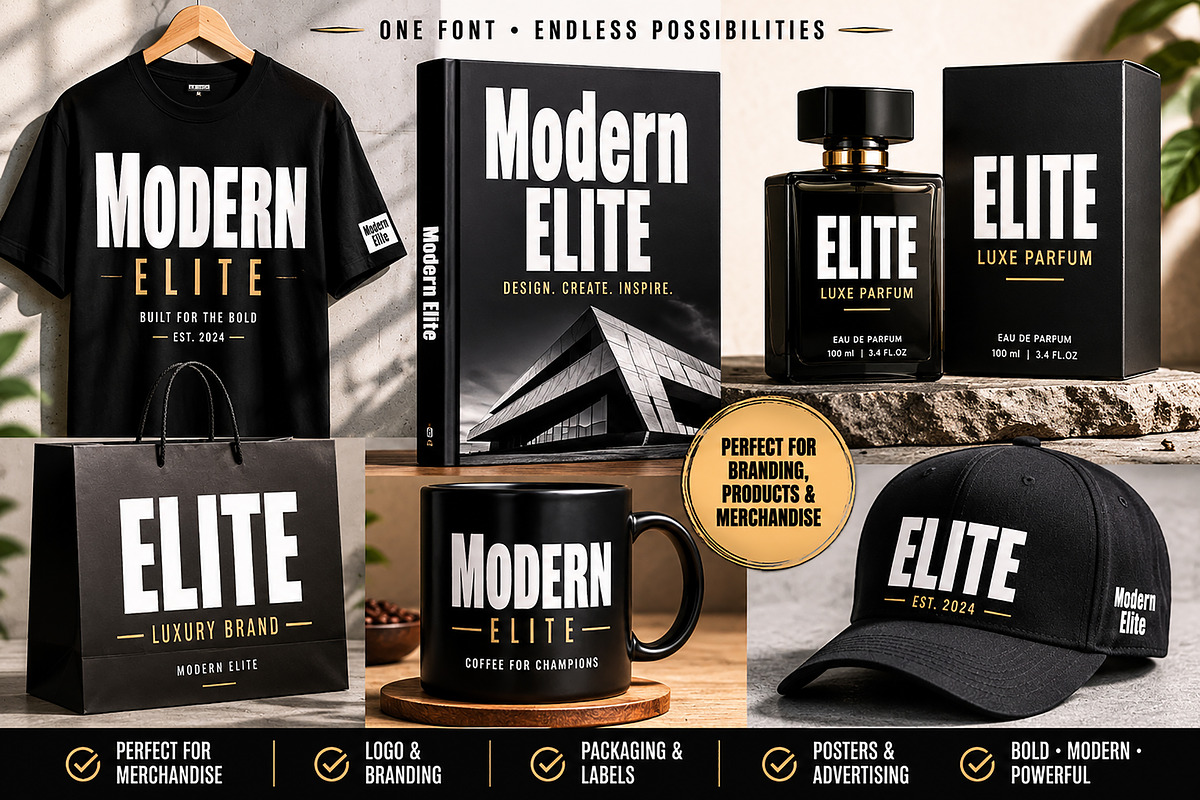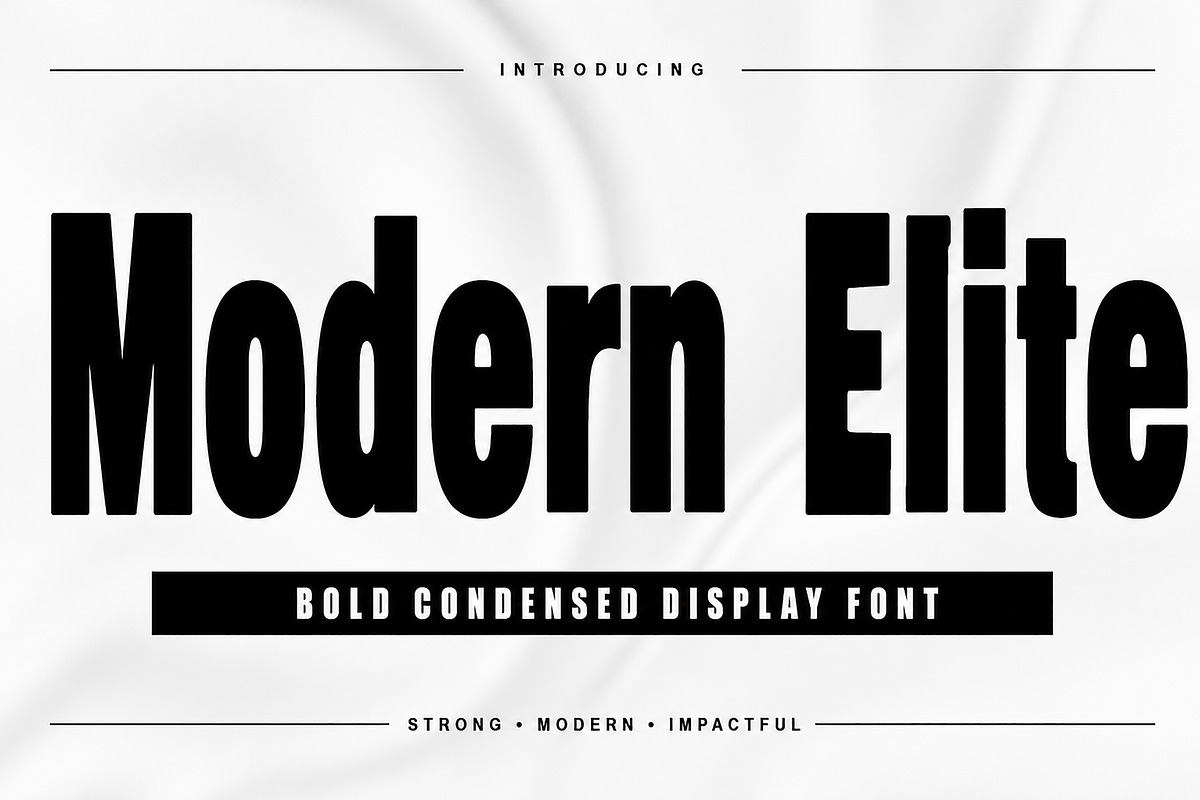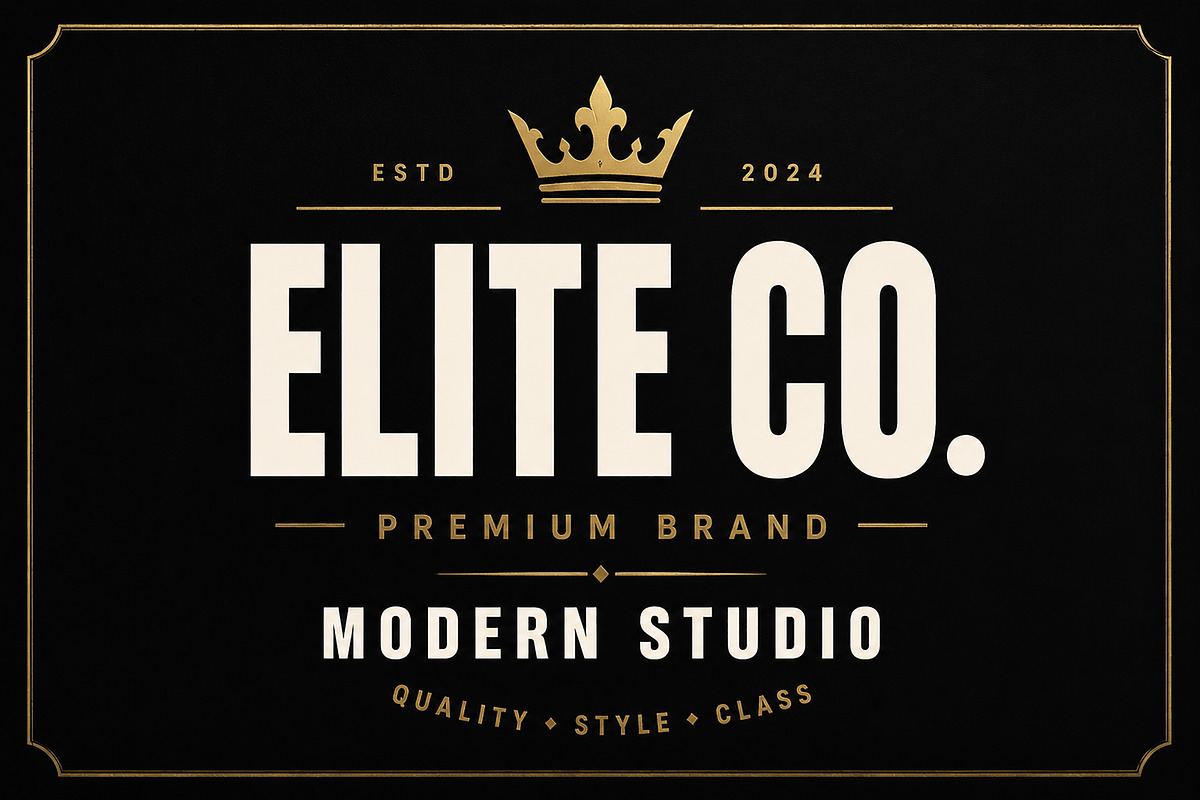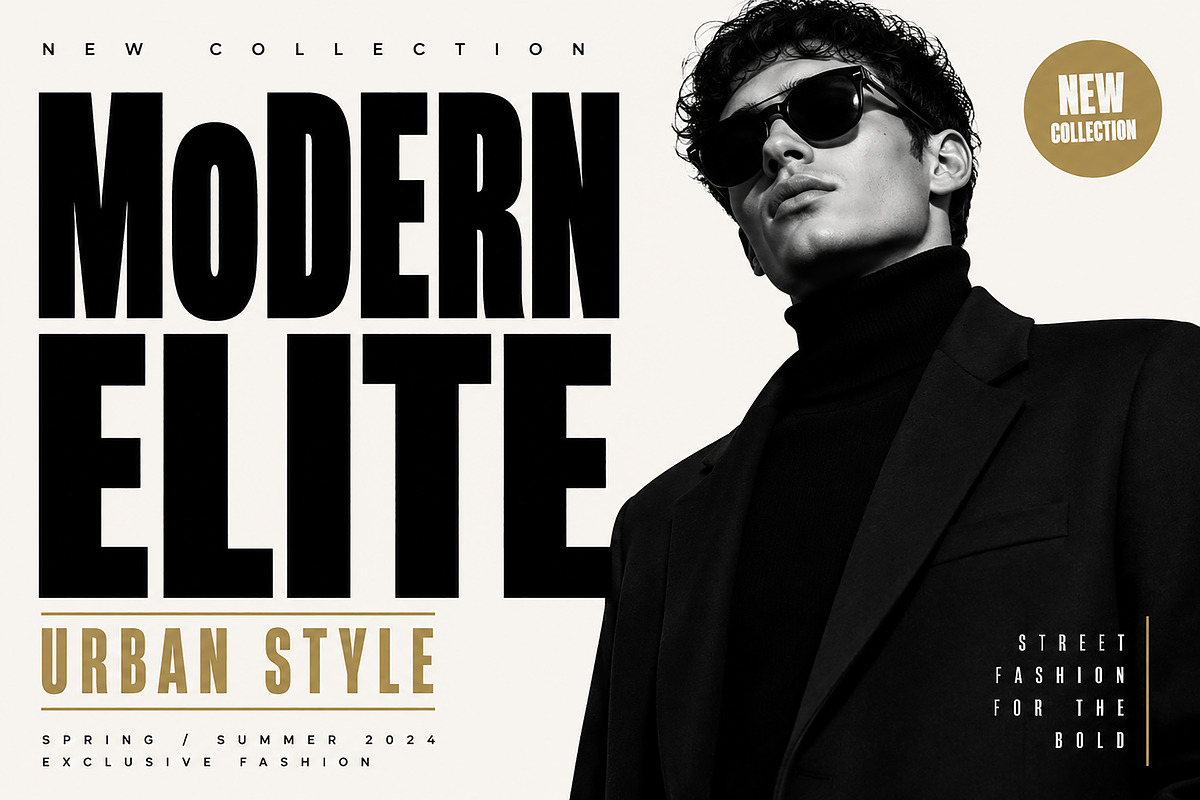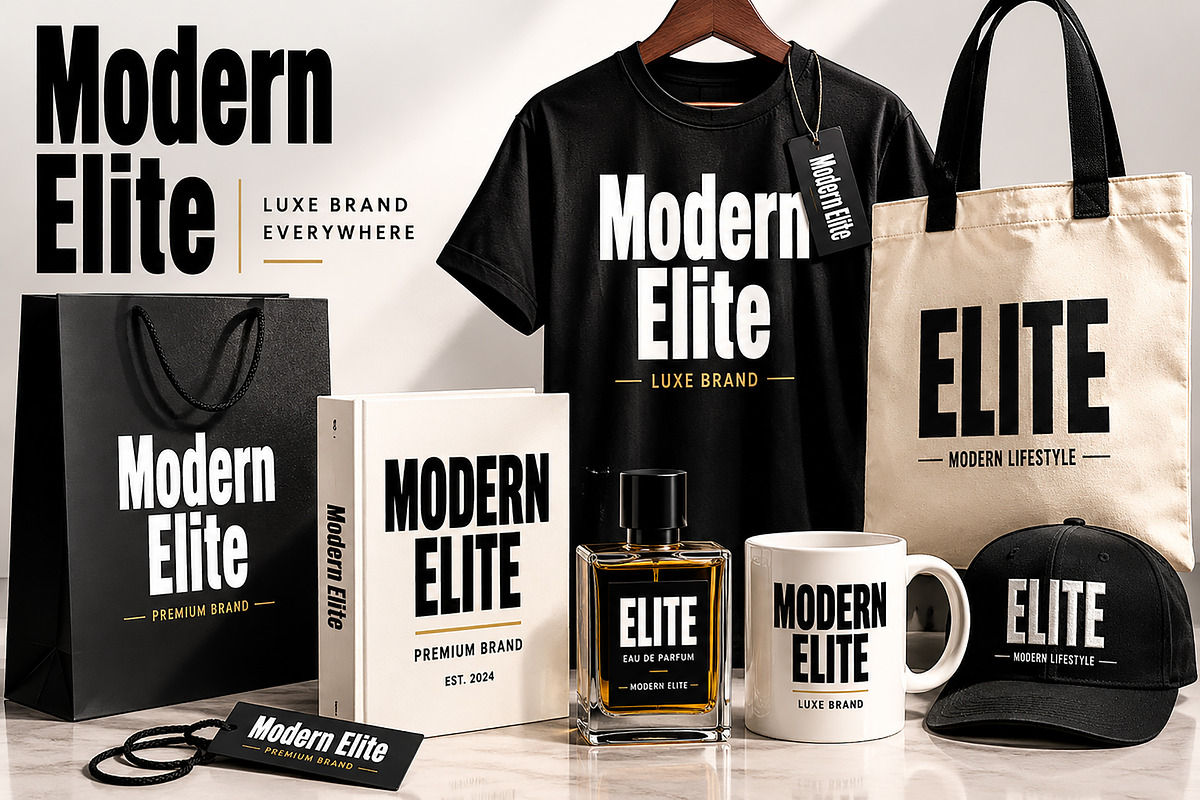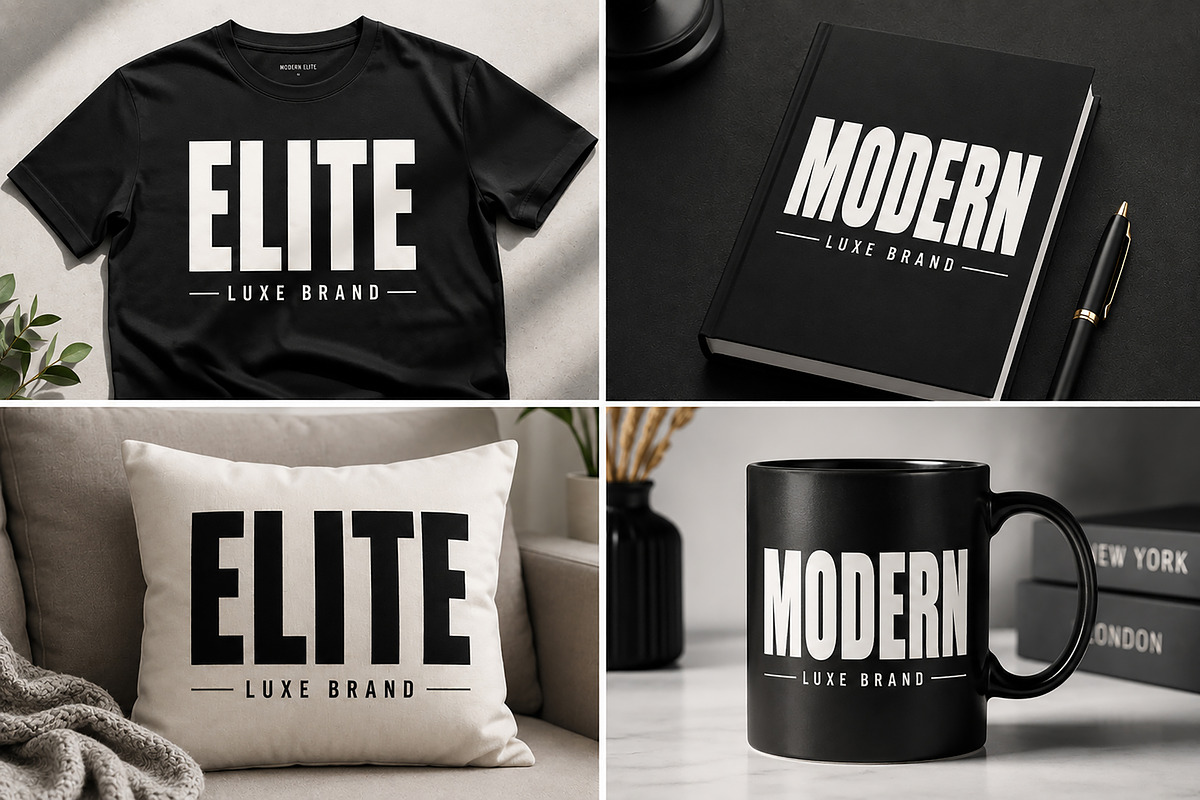
Modern Elite
Grand Serif – Vintage Display Font
Description
Grand Serif is a bold and charming vintage display font inspired by classic book covers, retro signage, old-fashioned advertising, and timeless branding. With its tall letterforms, strong presence, and distinctive serif details, this typeface instantly adds character, elegance, and nostalgia to any design.
Designed for creators who love vintage aesthetics, Grand Serif works beautifully for logos, packaging, posters, book covers, labels, branding projects, apparel designs, café menus, merchandise, and social media graphics. Its bold yet friendly personality makes it versatile enough for both professional branding and creative display work.
Whether you're creating a retro-inspired logo, a classic bookstore identity, a premium product label, or a stylish poster, Grand Serif delivers a memorable and authentic vintage look.
Vintage Logos
Branding Projects
Posters & Signage
Merchandise Design
T-Shirt Graphics
Labels & Packaging
Café & Restaurant Branding
Editorial Design
Retro Marketing Materials
Uppercase Letters
Lowercase Letters
High-Quality Display Typeface
Bring timeless vintage charm to your next creative project with Grand Serif.